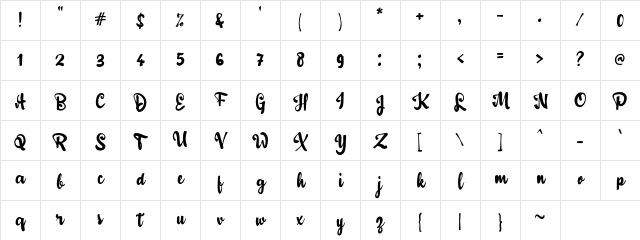
a Adulsa Script Regular Free Font
a Adulsa Script Regular
Designer: Wahyu Eka Prasetya
Design Context for a Adulsa Script
a Adulsa Script flows with the natural rhythm of handwritten lettering, making it ideal for designs that call for warmth and personal expression.
Font Pairing: Combine a Adulsa Script with a simple geometric sans for maximum contrast - the tension between flowing curves and clean structure is a classic typographic pairing.
Pro Tip: Use a Adulsa Script for short runs of text - names, titles, or taglines. Extended body copy in script faces tires the eye quickly.